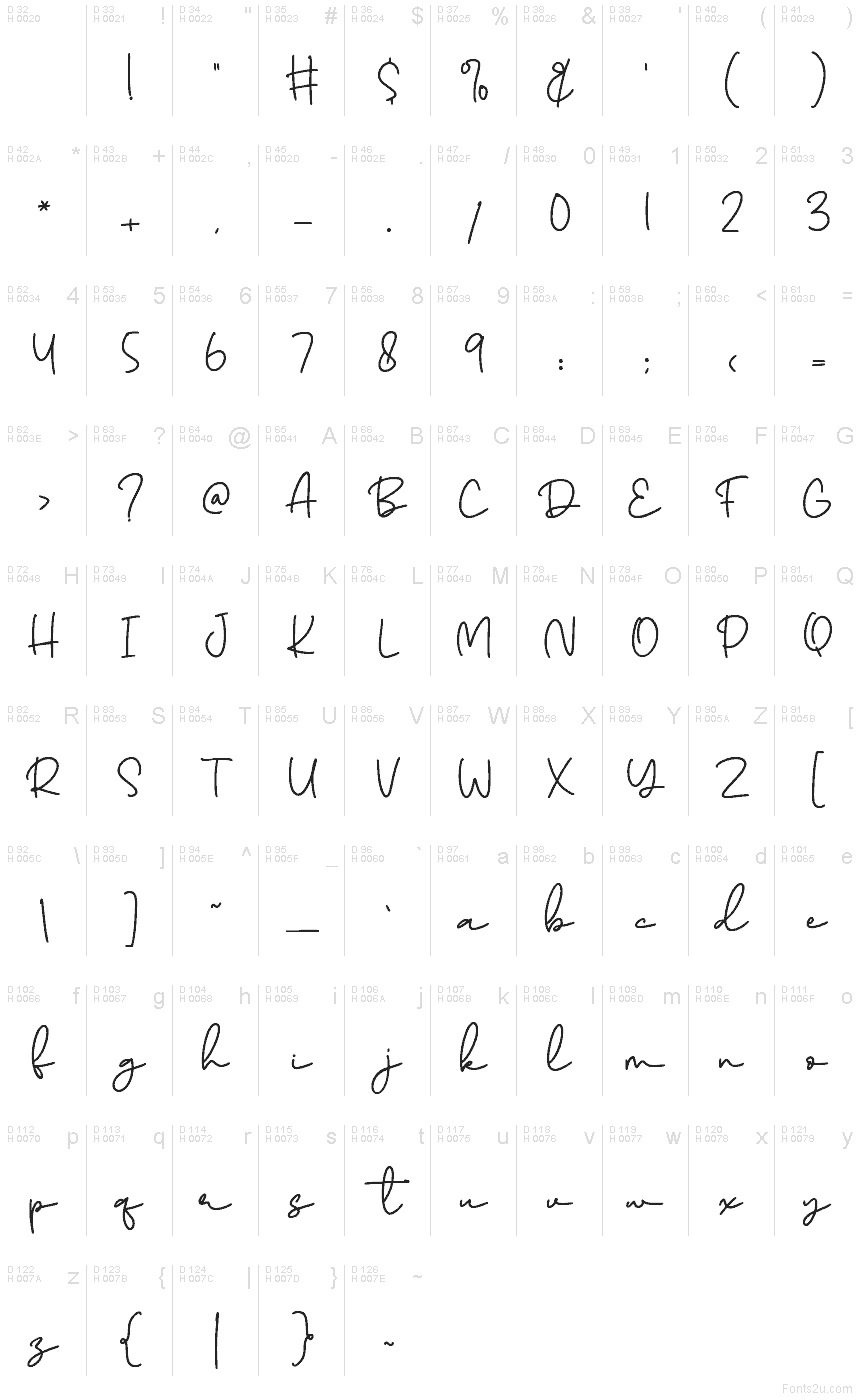
Paradise Sunshine
Paradise Sunshine font by Asep Rendi is a free light handwritten script font. It solves a familiar pain point: getting that relaxed, personal touch without sacrificing clarity. Smooth monoline strokes, a gentle baseline bounce, and tidy, modest loops keep the rhythm even and the texture airy, so words feel friendly yet stay unmistakably readable. Subtle spacing gives the letters room to breathe, avoiding the cramped, over-flourished look many scripts fall into.
Using Paradise Sunshine, you can bring warmth to wedding invitations, boutique logos, product packaging, social quotes, stationery sets, and cafe menus. This free font shines when set a bit larger to let the open counters sing. For balance, pair it with a clean, low-contrast sans to handle body copy—let the script lead, and the sans support.